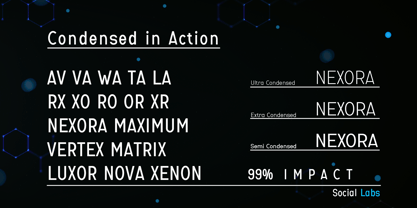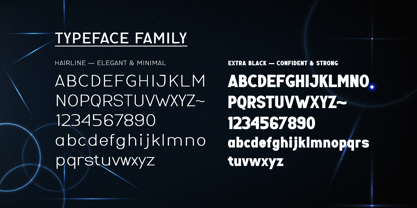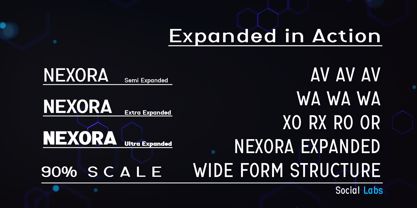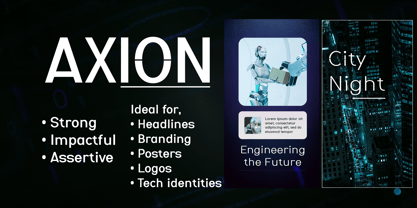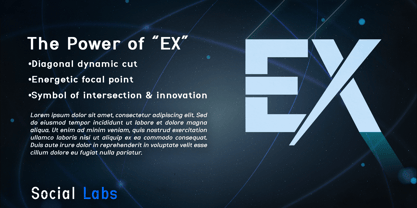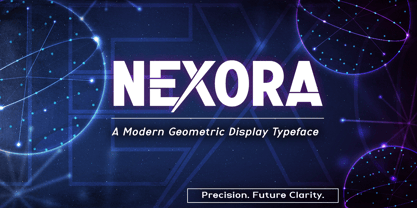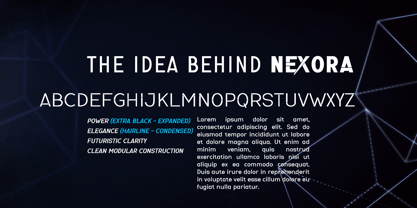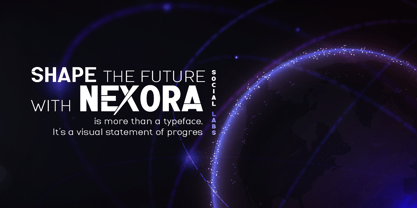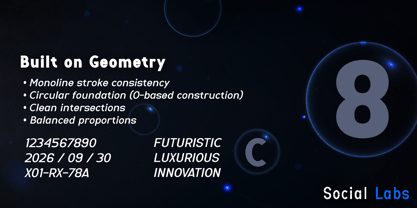
Nexora
by Social Labs
The Nexora Font Family was designed by Muhammad Naufal and published by Social Labs. Nexora contains 78 styles and family package options. More about this family
Nexora is a modern geometric sans-serif typeface designed with a foundation of precise shapes, consistent monoline strokes, and balanced proportions to deliver a strong, clean, and contemporary visual character. This typeface combines boldness in thick weights with elegance in thin weights, creating ideal flexibility for a wide range of design needs, from technology branding, corporate identity, modern editorial, to fashion and display typography. Distinctive details in the characters add a subtle progressive touch without compromising readability, making Nexora the perfect choice for designers seeking confident, precise typography that aligns with contemporary aesthetics.
Designers: Muhammad Naufal
Current Foundry: Social Labs